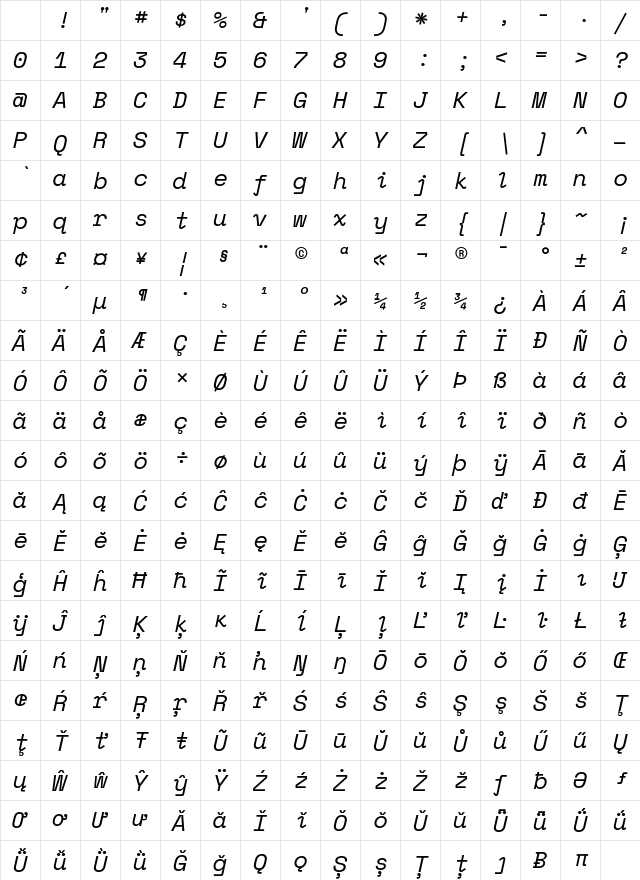
Complete SpaceMono NF Italic glyph index. Displaying only characters natively supported by SpaceMono NF Italic font.
SpaceMono NF uses fixed-width spacing throughout, giving it the structured, systematic character associated with coding environments and technical documentation. The slanted form adds forward momentum and visual energy.